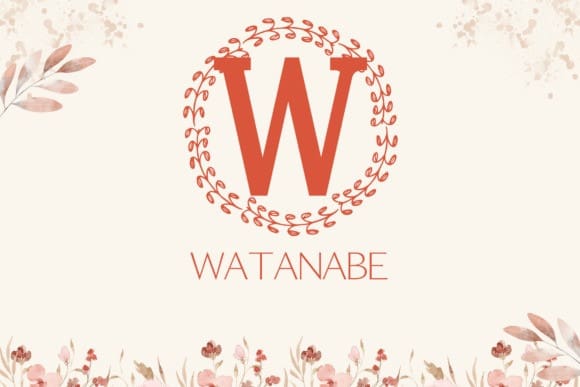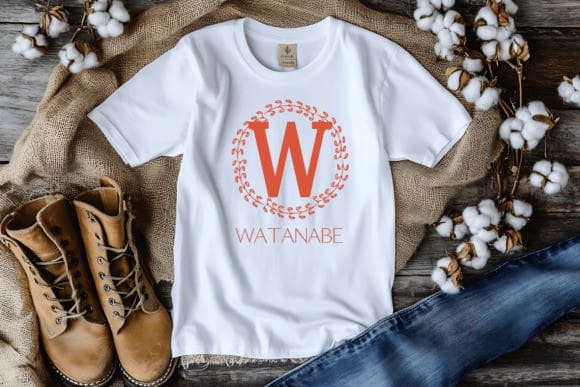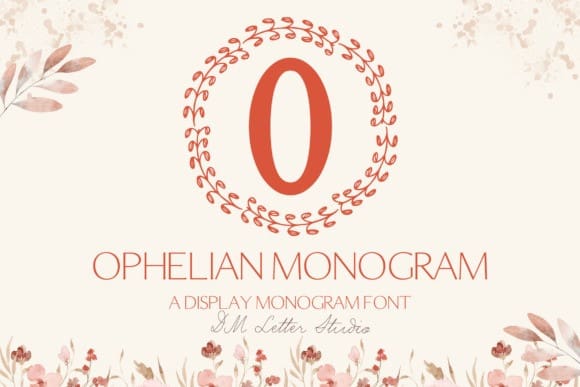
Ophelian Monogram Font
Ophelian Monogram Font is a luxurious serif monogram font crafted for designers who want to bring timeless elegance and a regal flair to their personalized projects. With its high-contrast strokes, delicate serifs, and graceful curves, this typeface stands out as the perfect luxury serif monogram font for wedding designs, upscale branding, personalized gifts, and high-end packaging.
Designed with a classic touch, each uppercase letter is beautifully shaped to evoke sophistication, yet styled with subtle modernity to remain versatile. Whether you’re working on custom stationery, logo designs, invitation suites, or engraving projects, Ophelian Monogram gives your work a polished and refined look. Its clean structure and balanced proportions make it easy to read, while still delivering plenty of visual charm.
Ophelian Monogram is especially ideal for Cricut and Silhouette users who want to create custom vinyl decals, nameplates, and monogrammed gifts that carry a sense of tradition and elegance. It also shines in digital and print projects, from boutique branding to social media graphics where aesthetics matter most.
Whether you’re creating monogram logos for boutique clients or personalizing wedding favors, Ophelian Monogram delivers a blend of heritage, style, and flexibility that enhances any project.